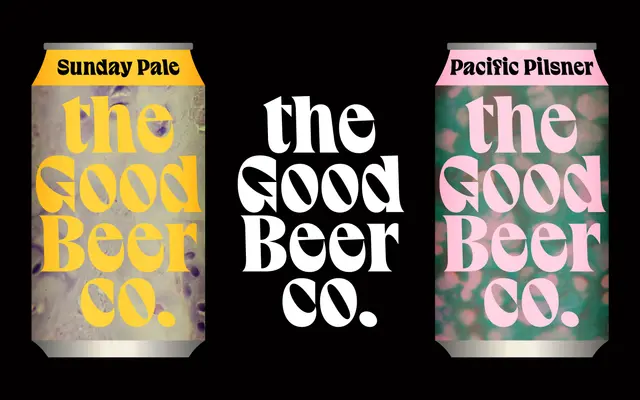
A display typeface from London-based Polytype, offering OpenType features and a distinctive glyph set.
Gela is part of Polytype's small, considered type library alongside faces such as Freizeit, Roquefort and Spoof. The page offers a 72pt type tester and OpenType feature access, suggesting a typeface built for headline and display use. Trial and purchase options are available directly from the foundry.
The page provides minimal descriptive information, but the glyph preview and foundry context suggest a display typeface; its inclusion among named Polytype releases alongside decorative and expressive faces points to a display classification.